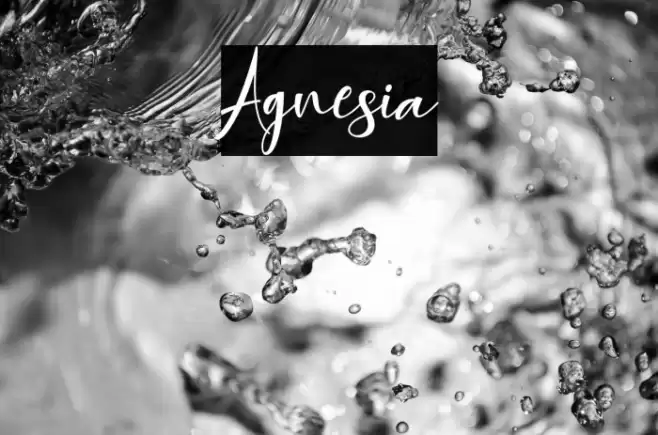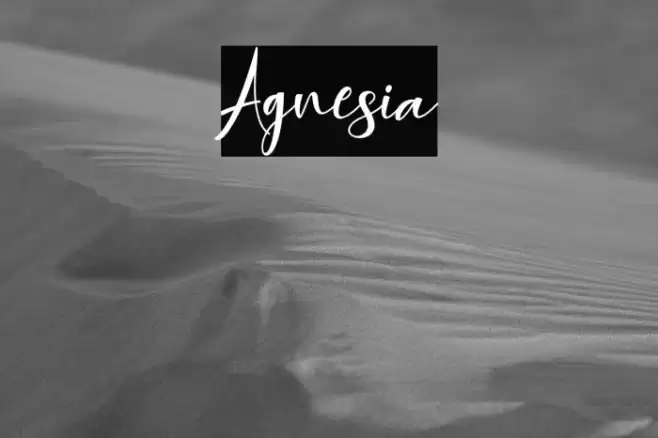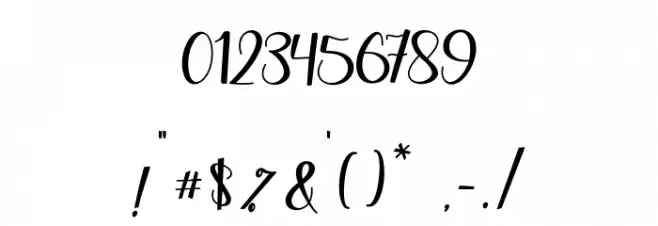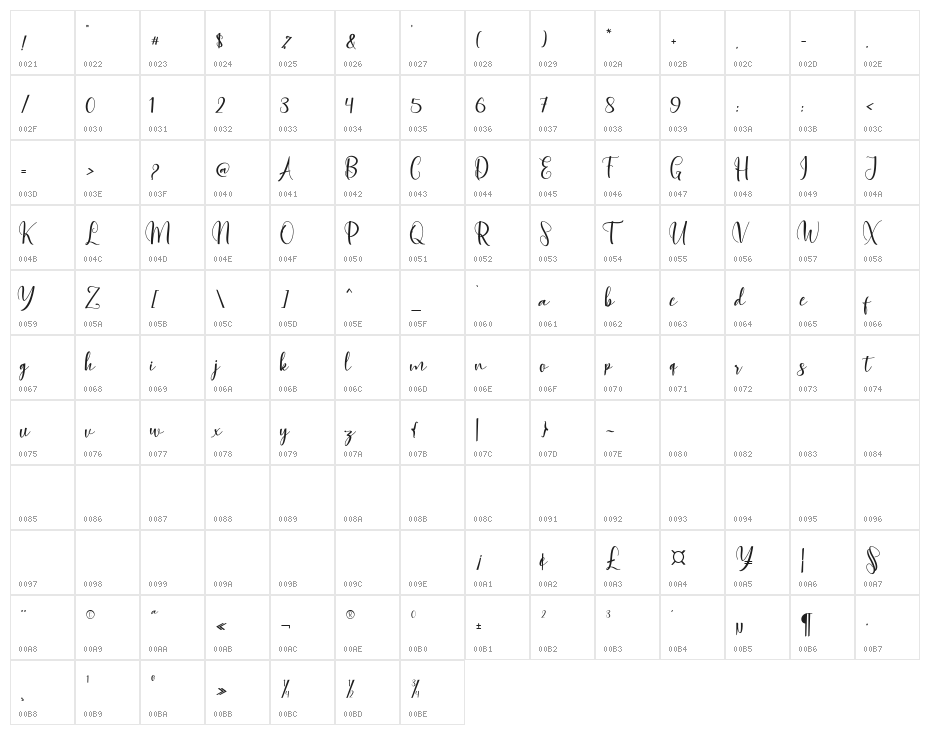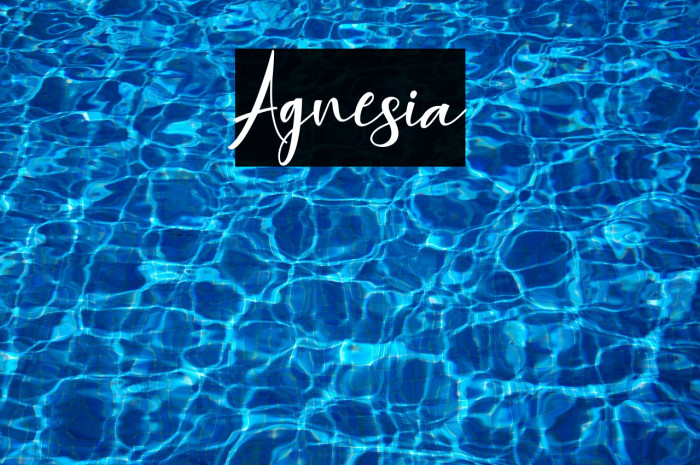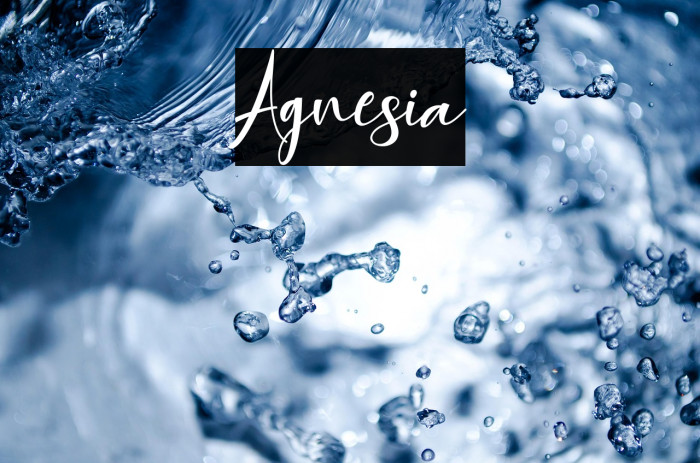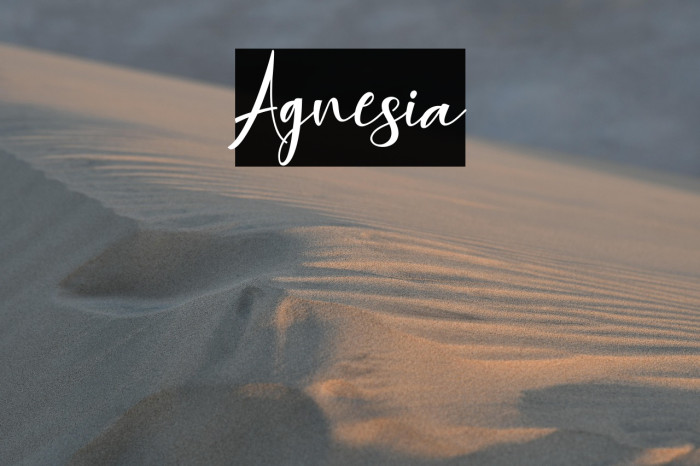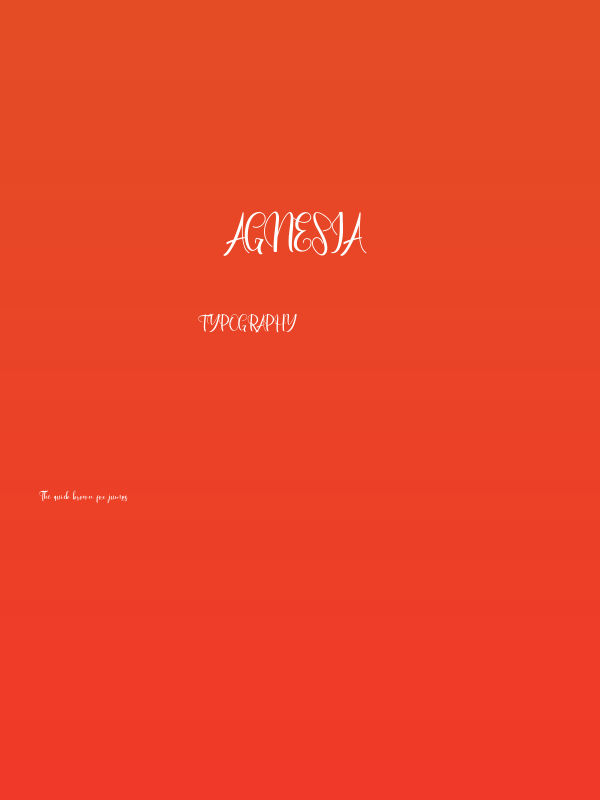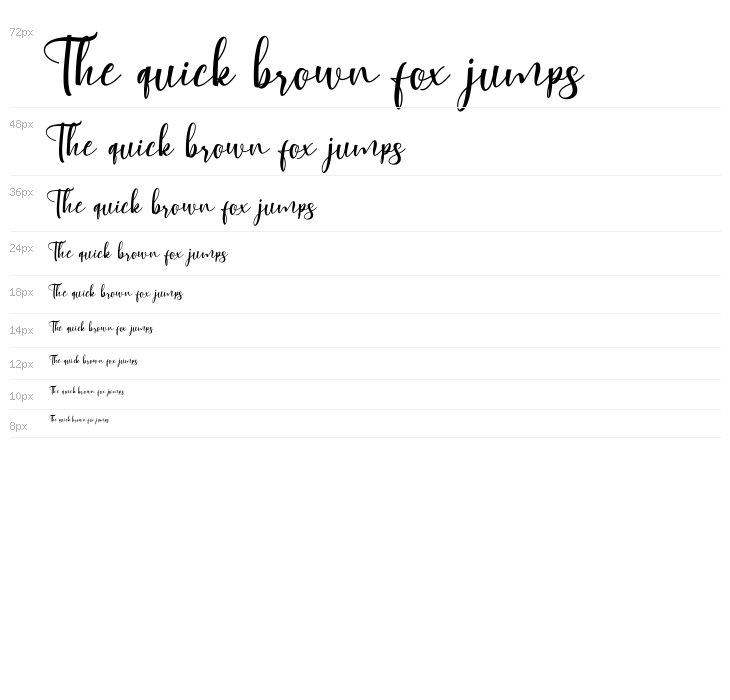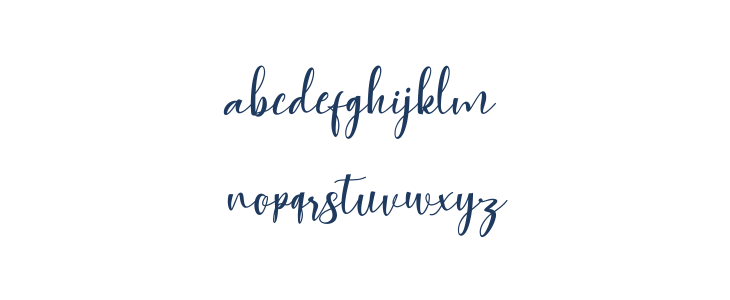
Agnesia Font
Agnesia Description
This font exudes a sense of elegance and fluidity, characterized by its script style with a calligraphic touch. The uppercase letters are ornate, featuring sweeping curves and flourishes that give a sense of movement and grace. The lowercase letters maintain a consistent flow, with smooth connections between characters, enhancing readability while retaining a decorative flair. The numerals are styled to match the script aesthetic, ensuring a cohesive look across all characters. Special characters are thoughtfully designed to complement the overall style, making this font suitable for creative and artistic projects.
An elegant script font with calligraphic flourishes and smooth connections from Regular fonts.
- Proposed Projects: Ideal for wedding invitations, branding, greeting cards, and artistic projects requiring a touch of sophistication.
- Overall Style: Elegant
- Use Case: Logos, Invitations, Artistic projects